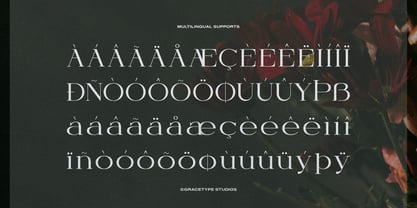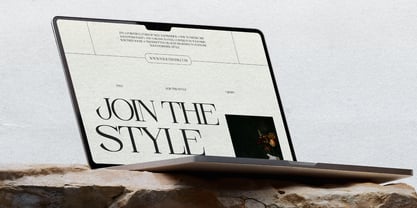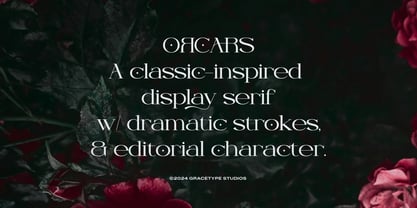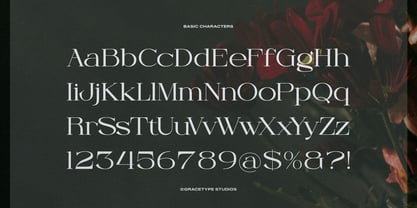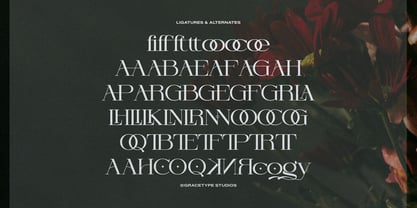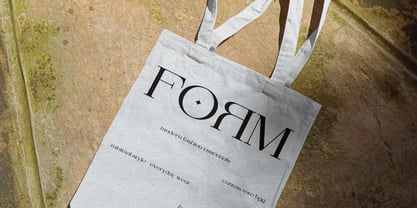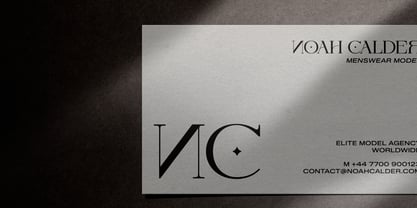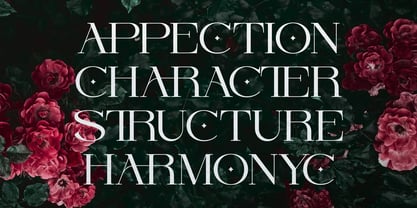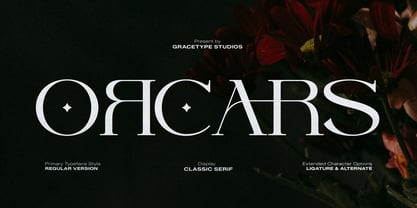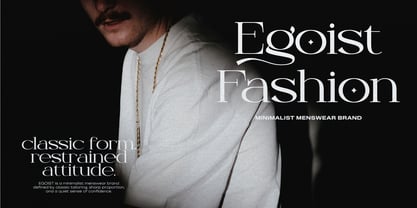
Orcars
von Tini Fitriani
Die Schriftfamilie Orcars wurde von entworfen und von Tini Fitriani veröffentlicht. Orcars enthält 2 Stile und Familienpaketoptionen. Mehr über diese Familie
Orcars | Classic Serif Font, from Gracetypestudio, suitable for any projects such as: logos, branding projects, homeware designs, product packaging, mugs, quotes, posters, shopping bags, t-shirts, book covers, name card, invitation cards, greeting cards, label, photography, watermark, special events, and all your other lovely projects that need a Serif taste.